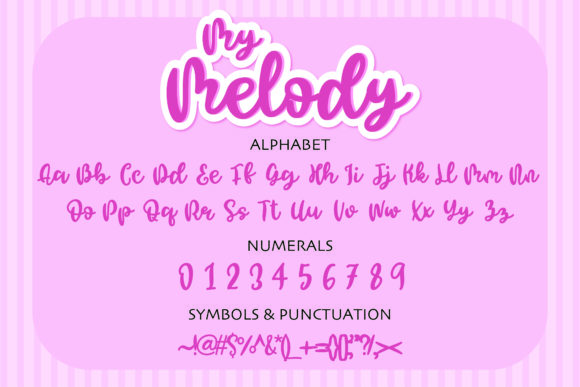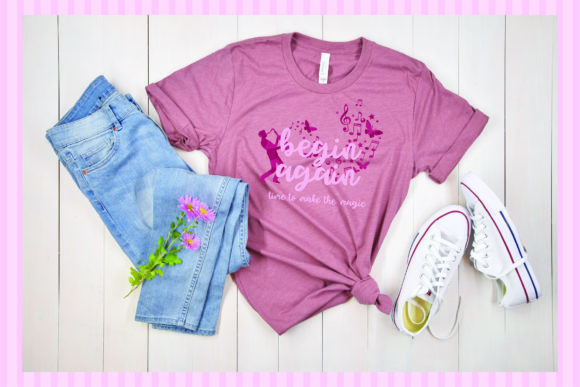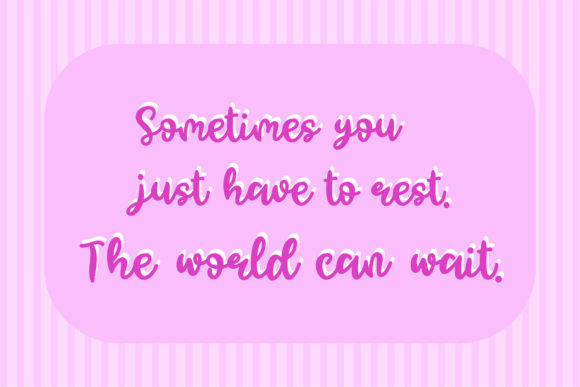
Introduction to My Melody Font
My Melody is a cute and flexible script handwritten font.
Its natural and unique style makes it incredibly fitting to a large pool of designs Have fun with this beautiful font and explore its endless variations.
My Melody Font offers exceptional quality and versatility, making it a valuable addition to your design toolkit. Whether you’re creating for personal projects or commercial use, My Melody Font delivers professional results.